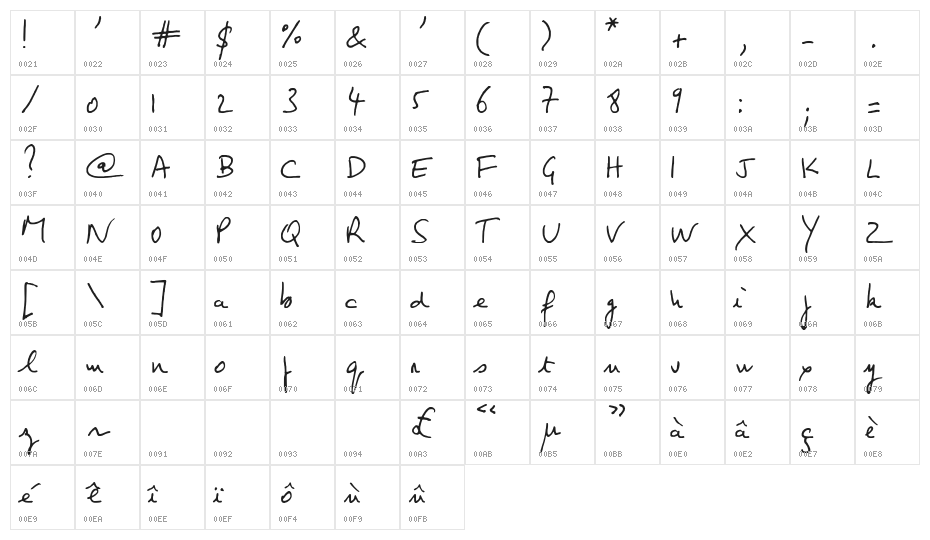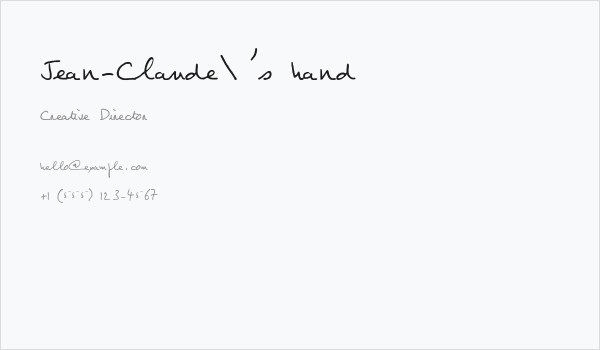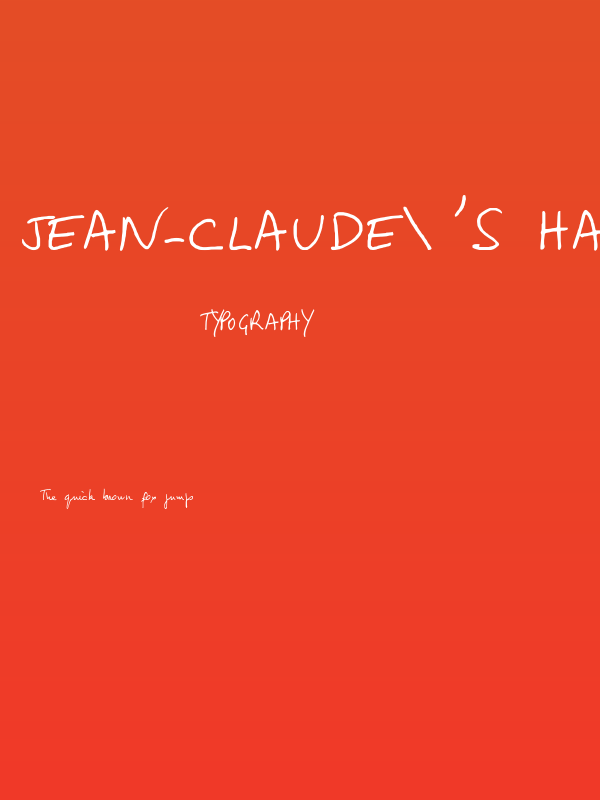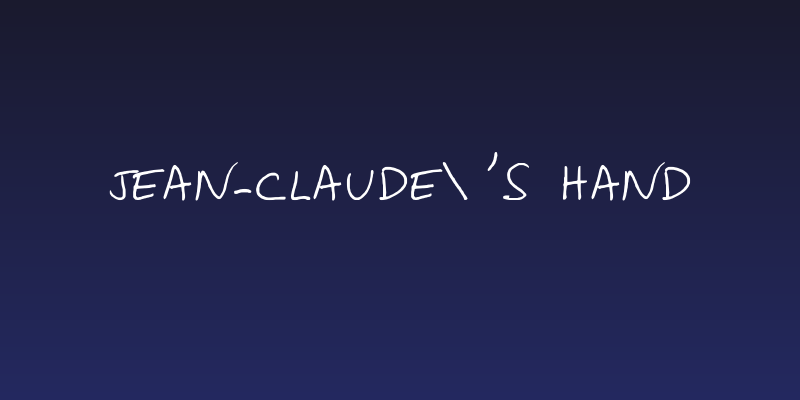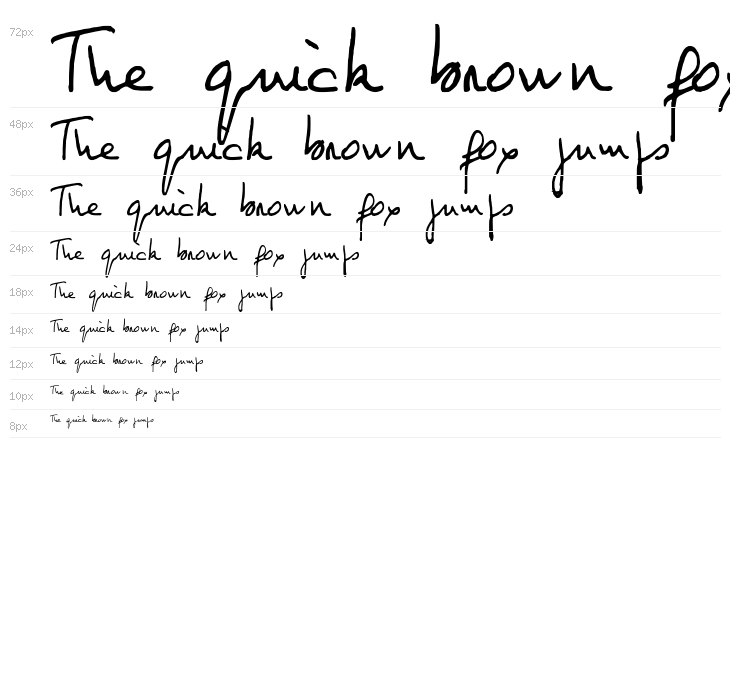
Jean-Claude's hand Font
Jean-Claude's hand Description
This font exudes a casual, handwritten style that mimics the fluidity and spontaneity of natural handwriting. The letters are slightly slanted, with varying stroke widths that add a dynamic and personal touch. The uppercase letters are bold and prominent, while the lowercase letters maintain a consistent flow, giving the font a cohesive look. Numbers and special characters are crafted with the same attention to detail, ensuring uniformity across all elements. The overall appearance is informal yet legible, making it suitable for projects that require a personal or creative flair.
Overall StyleCasual, Creative
Use CaseHeadlines, Informal text, Creative projects
Proposed ProjectsIdeal for personal notes, creative projects, invitations, and informal branding.